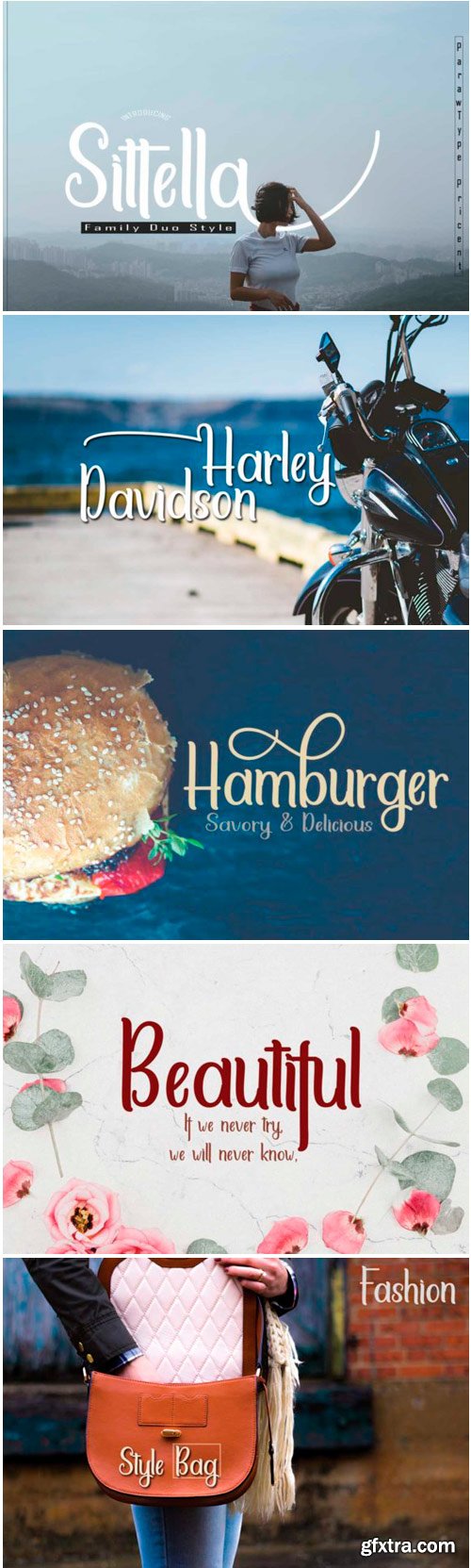
Sittella Font
Sittella is a light, fund and authentic handwritten font with a beautiful feel. It will effortlessly turn any design project into an eye catcher!